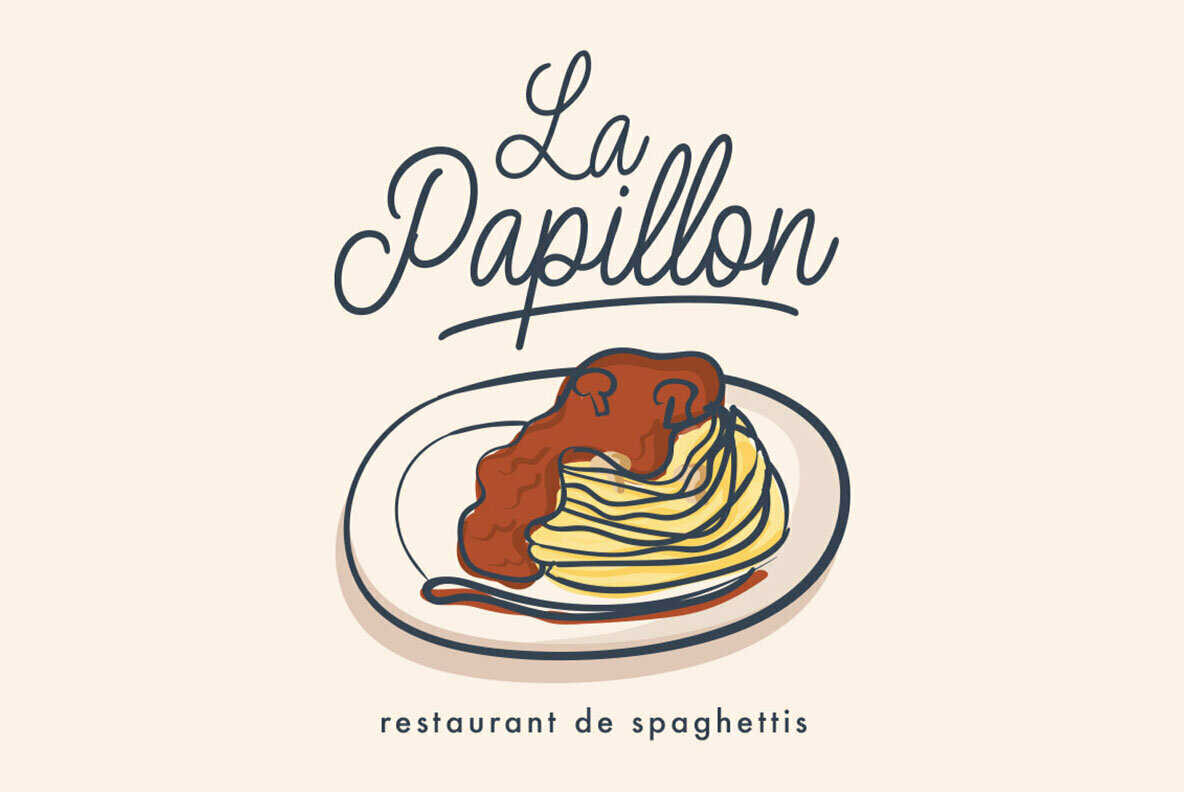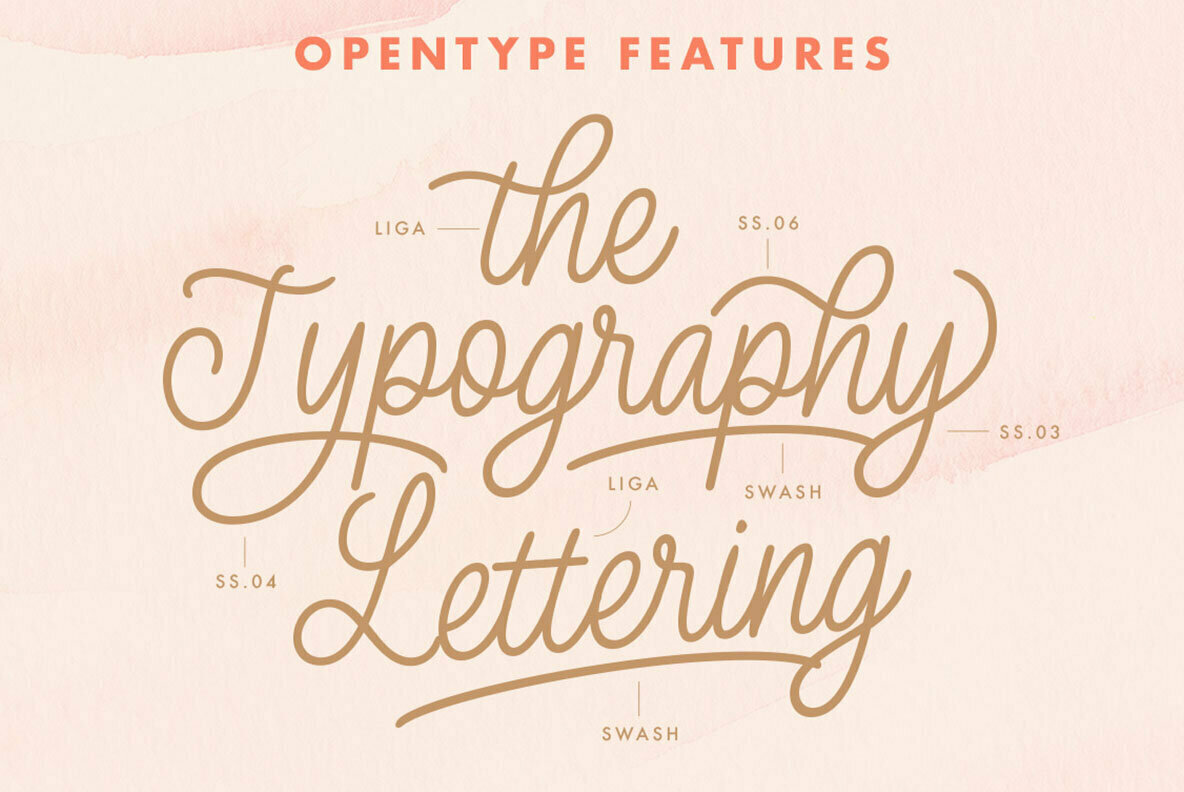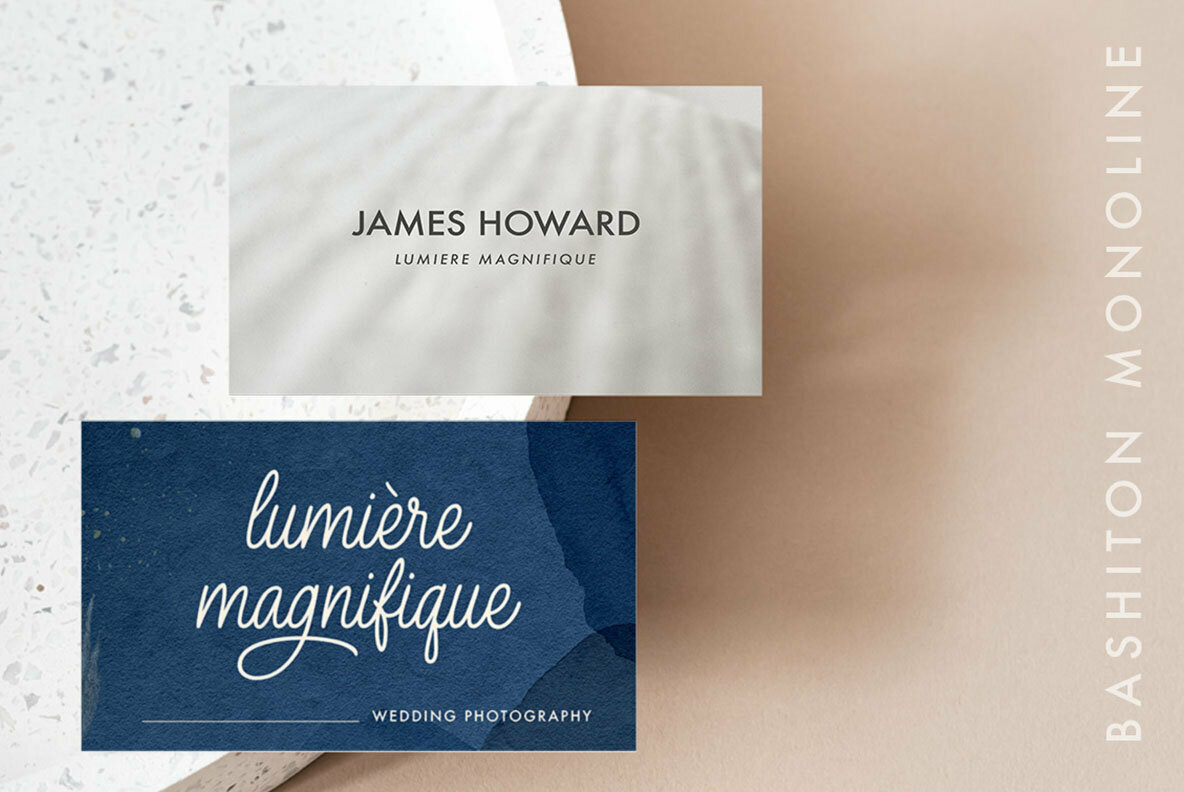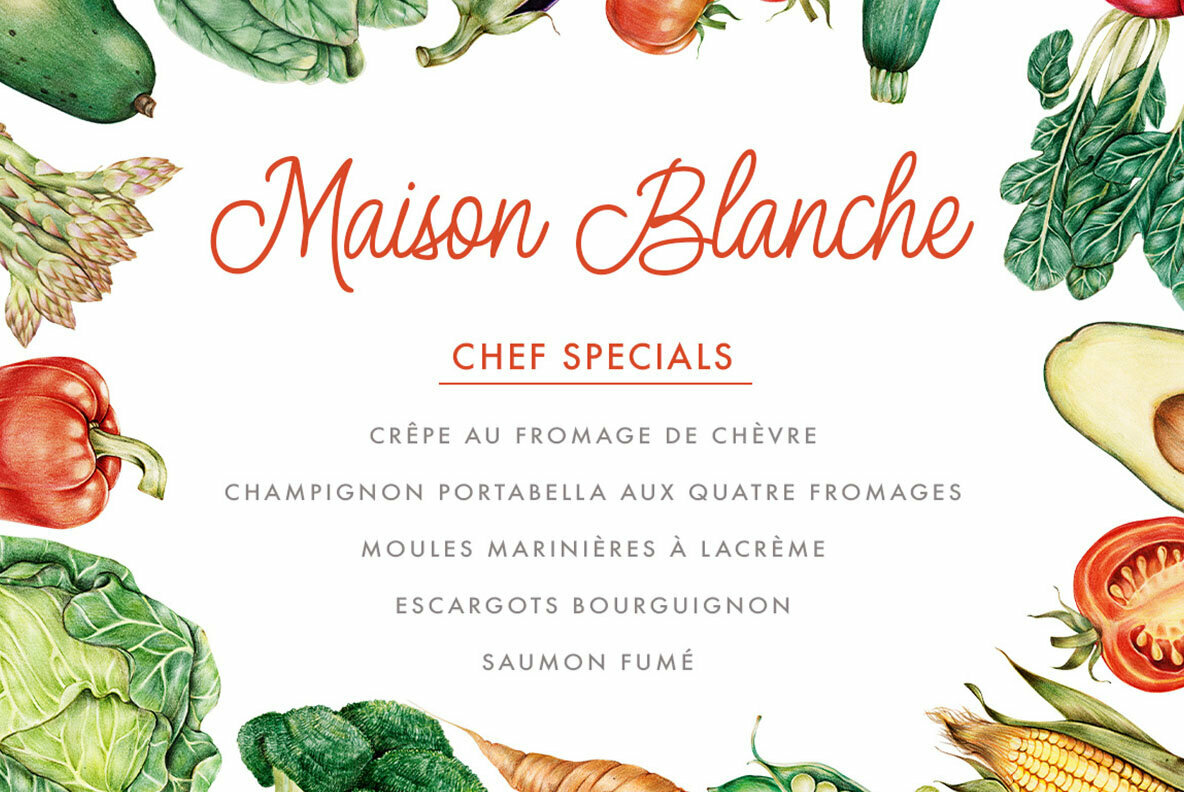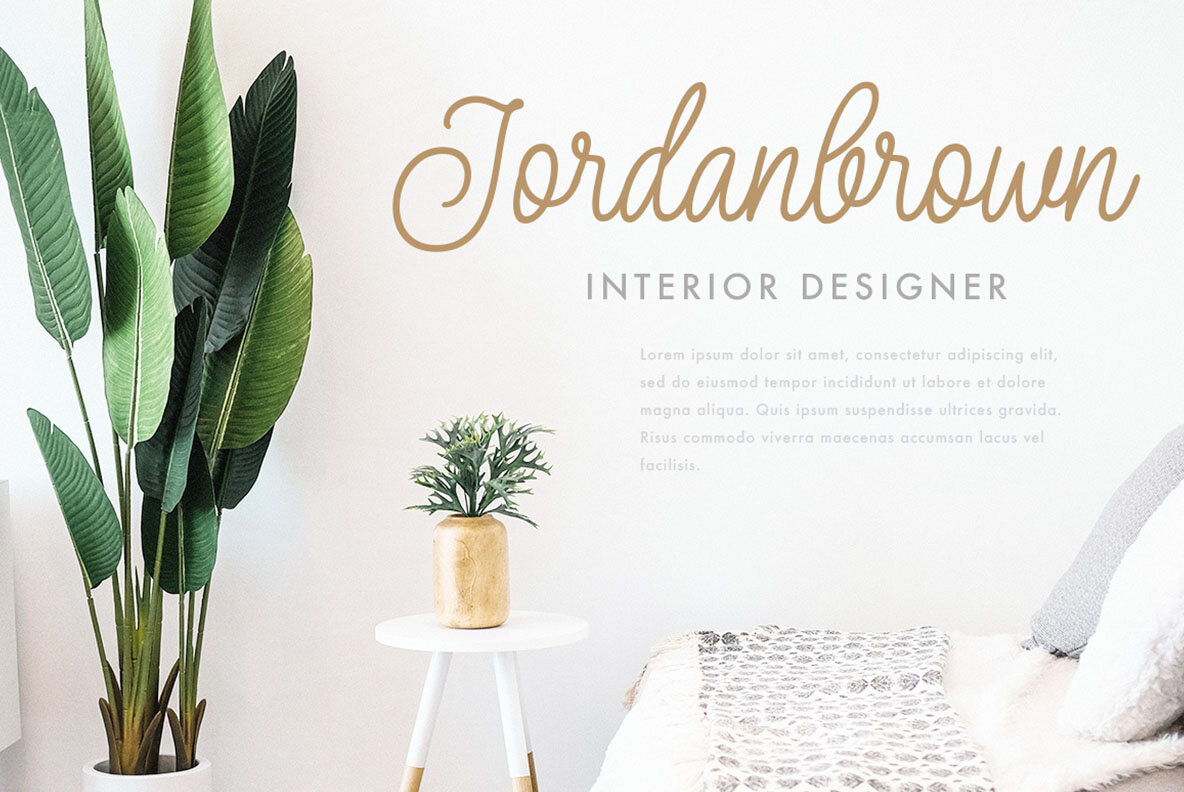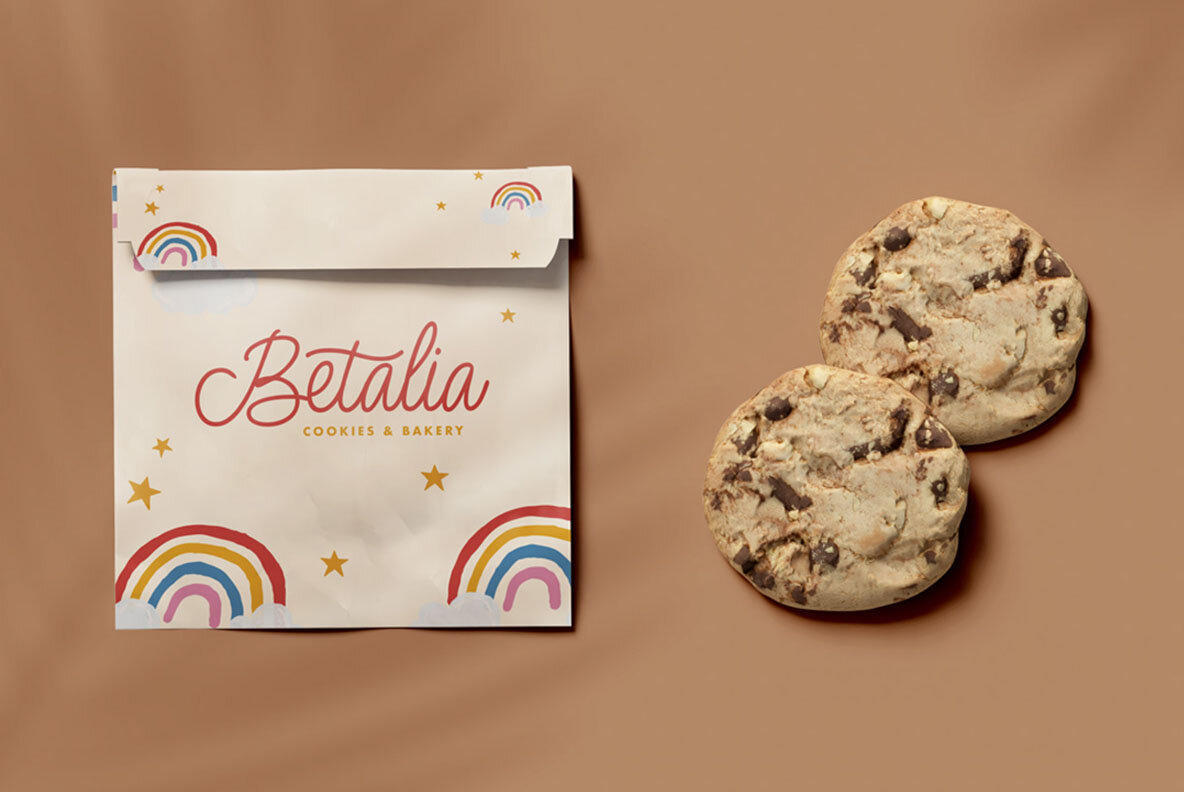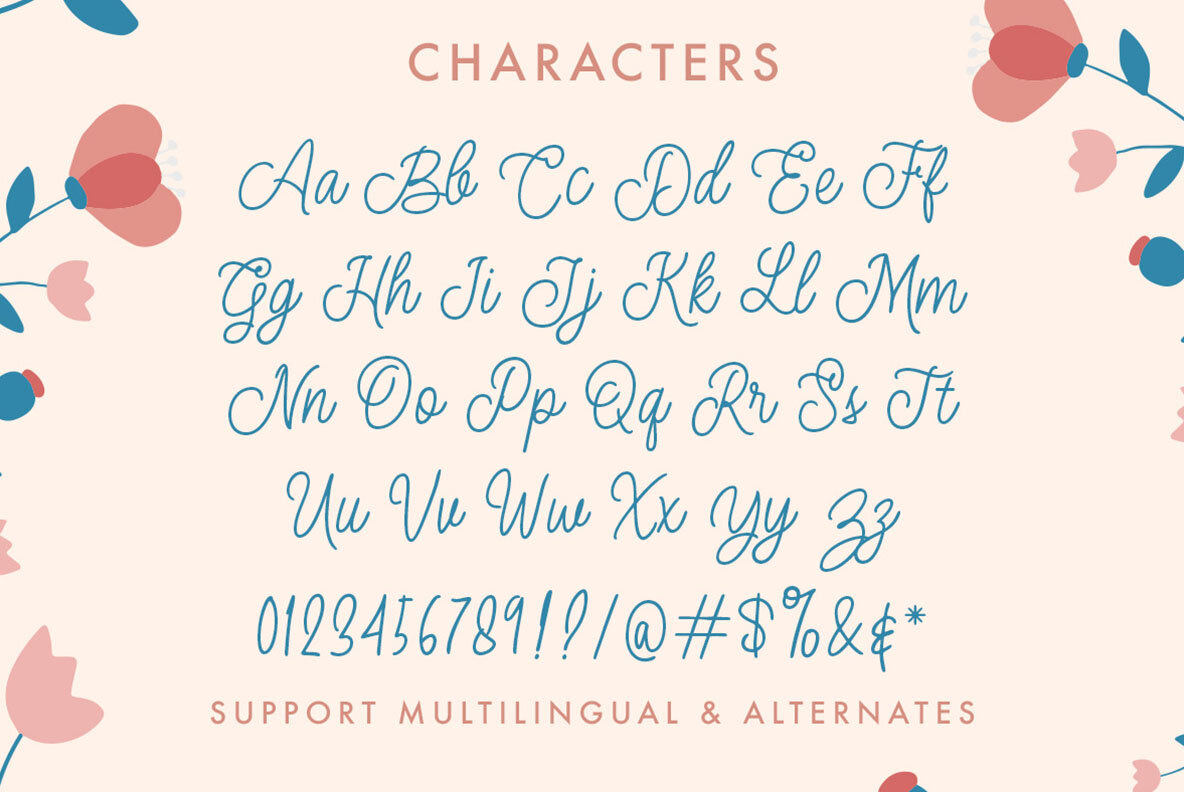
Bashiton Font
Bashiton Regular
Bashiton by Letterhend Studio captures the elegance of monoline typography with a nostalgic vintage twist. Ideal for logos, headlines, and formal applications, Bashiton delivers a sophisticated touch to invitations, labels, magazines, and more. Features:Bashiton: Monoline Script with Vintage Charm